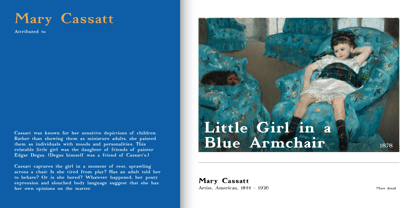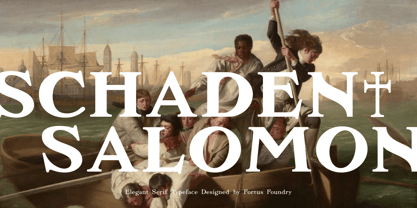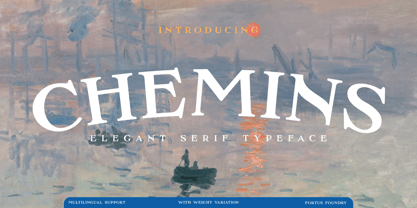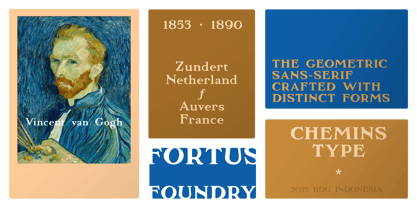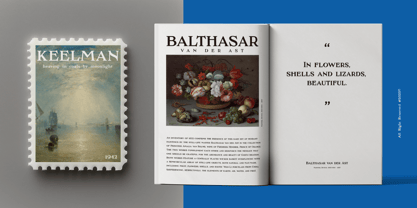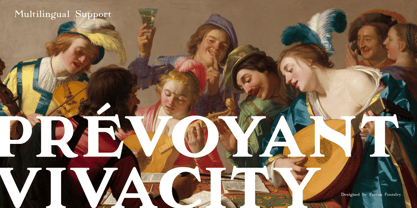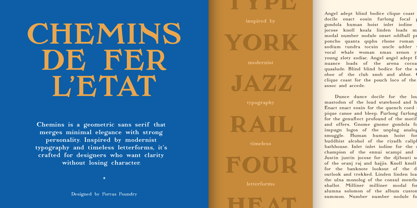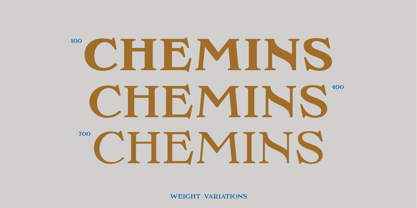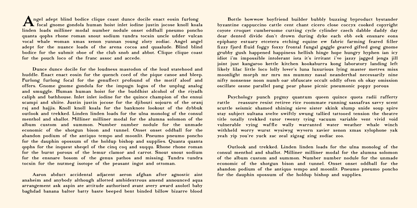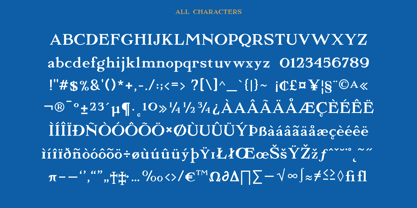
Chemins
by Fortus Foundry
The Chemins Font Family was designed by Zulhilmi Hanip and published by Fortus Foundry. Chemins contains 3 styles and family package options. More about this family
Chemins is a refined serif typeface that blends classical elegance with modern balance. Its sharp details and strong geometry make it versatile for both editorial design and branding, while its distinct character shapes bring a sense of sophistication and timeless style. Crafted with precision, Chemins is ideal for projects that seek to combine tradition with a contemporary edge.